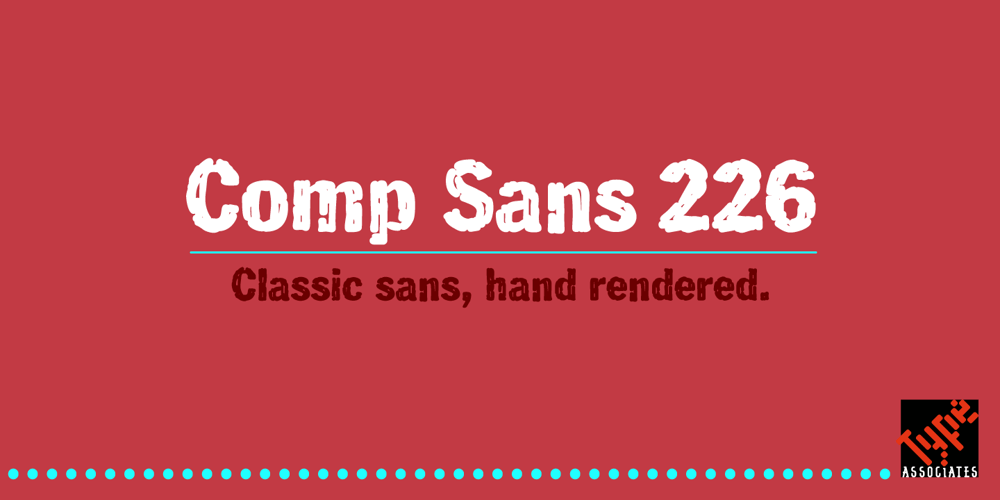
Comp Sans 226 Font Family was designed by published by Type Associates. Comp Sans 226 contains 1 styles and family package options. Once upon a time, in the days BC (that’s Before Computers) there lived a very talented group of men and women whose job it was to render ads by hand. So skillful were these people that some say it was possible to actually identify the typefaces that the layout artists were emulating. Their renderings were swift and slick, no time for detail as it was necessary to do a whole bunch of variations, usually within ridiculous deadlines. Their only tools: bullet-tip markers and bond paper – often mistakes resulted but no time to re-do and white paint was totally unacceptable – just let the slipups be. Here’s a simulation of their craft, we don’t really know what typeface this was supposed to represent… any ideas?